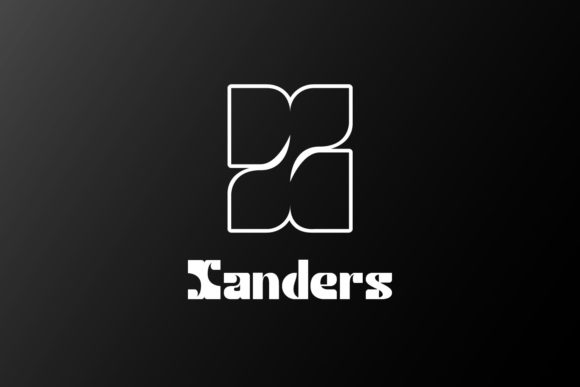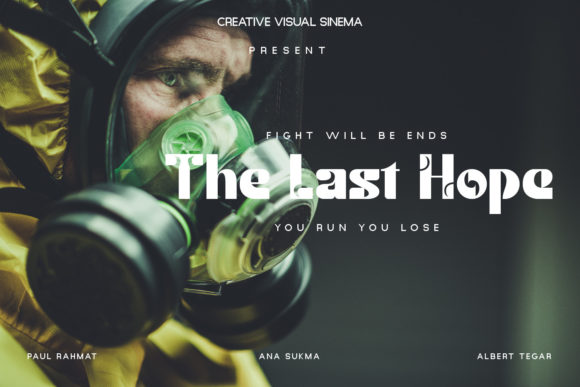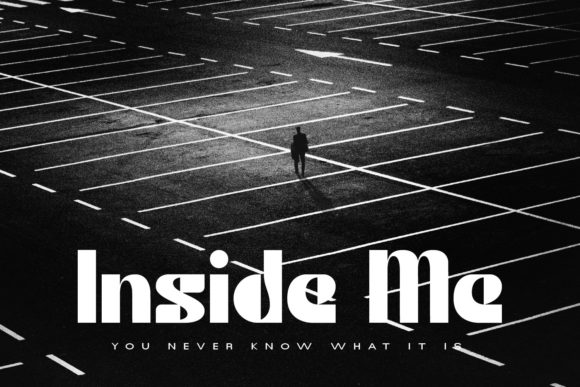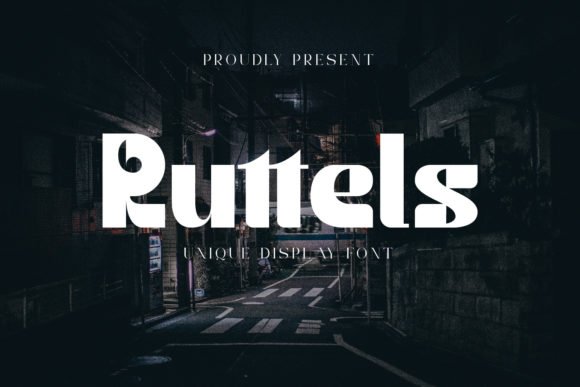
Introduction to Ruttels Font
Ruttels is a cool, bold and trendy looking display font.
This font was particularly crafted for those who need an assertive and refreshing look to their designs Ruttels is PUA encoded which means you can access all of the glyphs and swashes with ease.
Ruttels Font offers exceptional quality and versatility, making it a valuable addition to your design toolkit. Whether you’re creating for personal projects or commercial use, Ruttels Font delivers professional results.